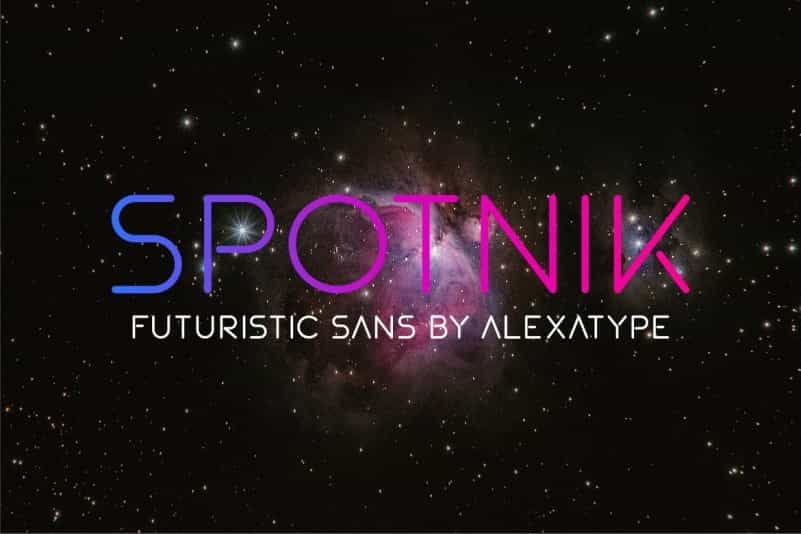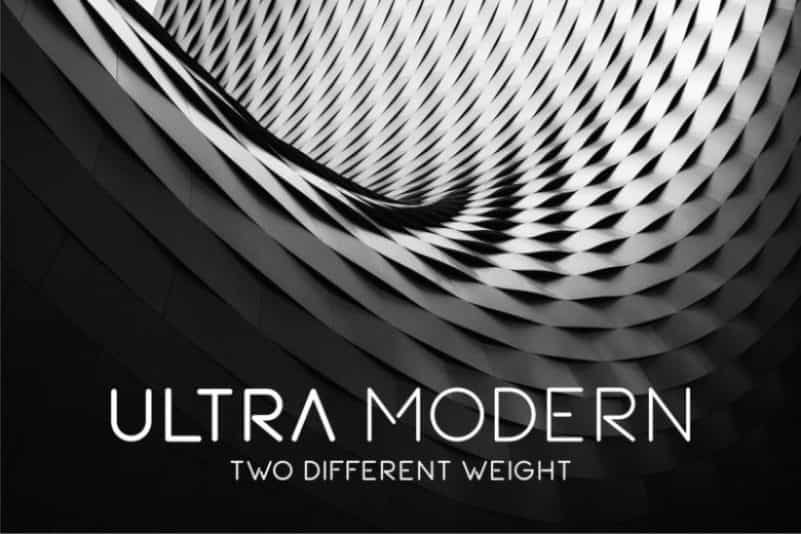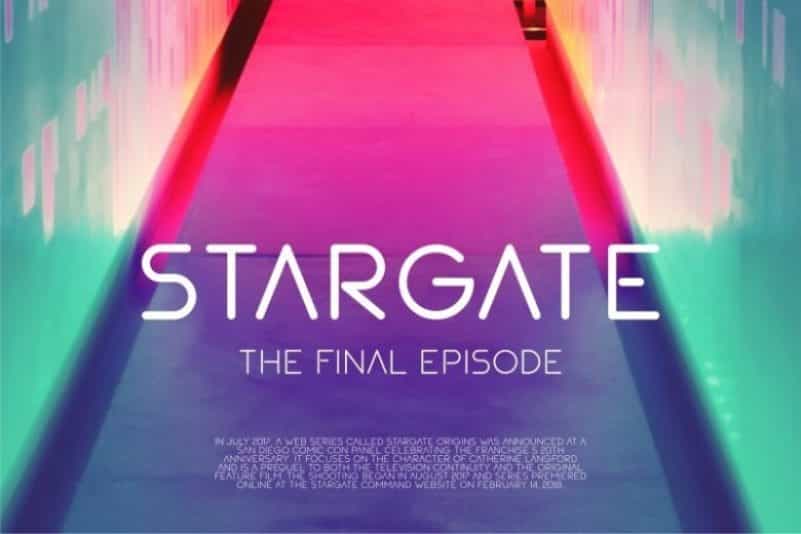
SPOTNIK is a geometric font with thin lines, open connections style and the design reflects the modern technology and future. Ideal for the high-end article headline, space and digital related project.